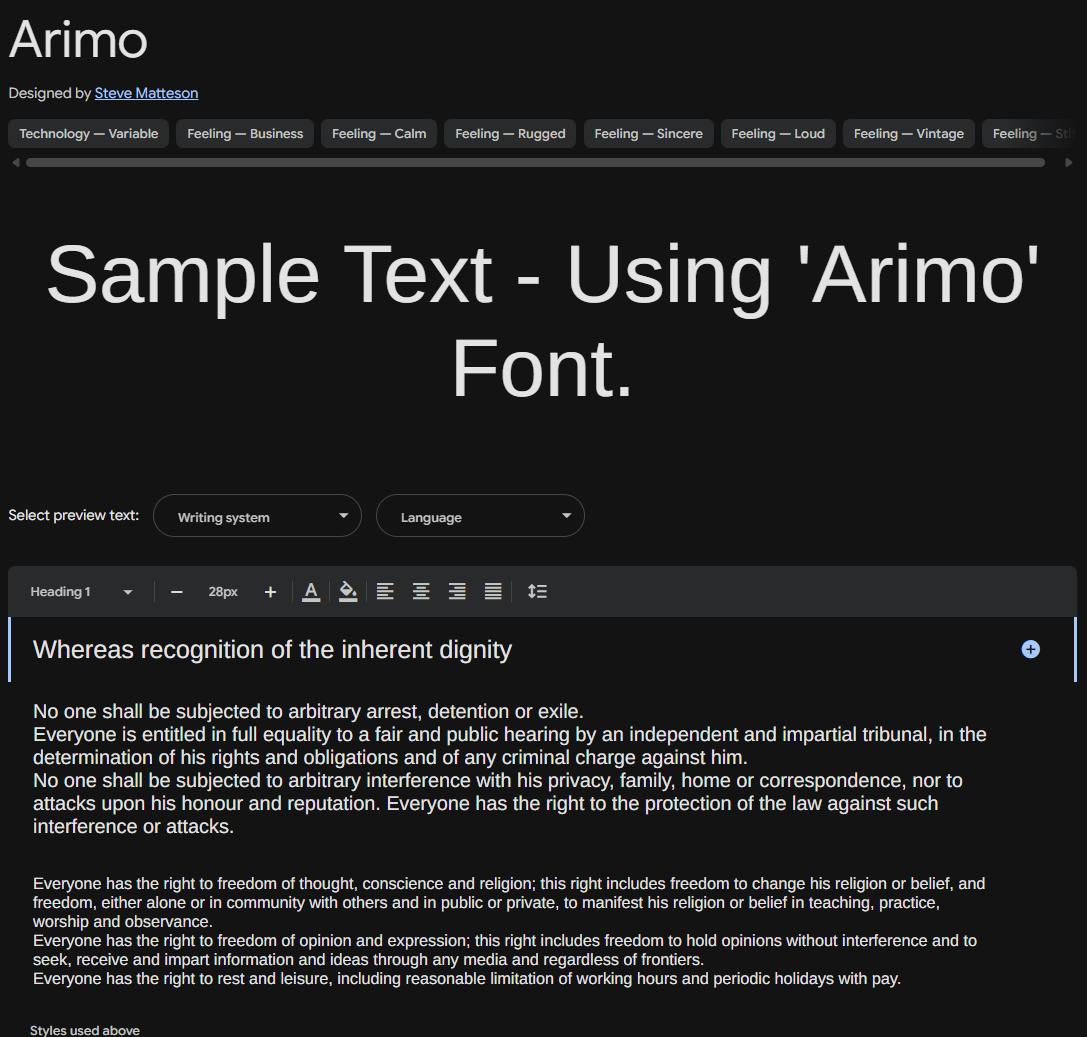
Designed by Steve Matteson as a high-performance, metrically compatible alternative to Arial, Arimo stands as a cornerstone of modern digital typography, now enhanced by the technological efficiency of the variable font format. By integrating two precise axes-Weight (wght) and Italic (ital)-this neo-grotesque sans-serif empowers developers to fine-tune visual hierarchies without the latency overhead of multiple static files, directly benefiting Core Web Vitals and layout stability. Its architectural neutrality and open apertures are specifically engineered for cross-platform screen legibility, ensuring that its precise character widths prevent layout reflow while maintaining a sophisticated, accessible aesthetic in complex user interfaces.
Arimo, engineered by Steve Matteson as a high-performance variable font, functions as a metric-compatible alternative to Arial, offering a business-centric precision that ensures seamless document reflow across digital environments. This neo-grotesque typeface achieves a sincere and calm aesthetic through its balanced x-height and open apertures, yet it maintains a rugged durability rooted in its technical optimization for low-resolution screen hinting. While its vertical stress and geometric structure impart a stiff, vintage reliability reminiscent of mid-century Swiss design, the implementation of variable technology allows Arimo to transition into a loud, high-impact communicator by manipulating its expansive weight axis, effectively bridging the gap between utilitarian functionality and assertive typographic expression.
Arimo, while a powerhouse for cross-platform legibility and metrical parity with legacy neo-grotesques, proves fundamentally ill-suited for high-concept luxury branding or artisanal editorial projects where visual differentiation is the primary currency. Its variable axes-optimized by Steve Matteson for uniform x-heights and high-speed rasterization-lack the expressive glyphic contrast and idiosyncratic terminals necessary to evoke a sense of heritage or bespoke craftsmanship. Because Arimo is engineered as a neutral, screen-first utility font for Chrome OS environments, it fails to provide the organic stroke modulation or high-contrast apertures required in high-fashion logotypes or avant-garde typography, where the "blank slate" aesthetic of a metrically compatible sans-serif would dilute brand personality into clinical invisibility.
Arimo is a contemporary sans-serif typeface characterized by its clean, neutral aesthetic and humanist design influences. It is technically classified as a "Neo-Grotesque" font, engineered specifically for enhanced on-screen legibility through its optimized stroke contrast and open apertures.
Arimo was specifically designed by Steve Matteson to be metrically compatible with the ubiquitous Arial font. This pixel-for-pixel horizontal width parity ensures that document reflow is eliminated when transitioning between proprietary system fonts and open-source alternatives in CSS stacks.
Arimo is highly recommended for long-form reading due to its balanced proportions and generous spacing that facilitate high readability. The font's optimized hinting and vertical metrics provide a stable baseline that reduces eye fatigue during extended periods of high-density text consumption on backlit displays.
Arimo features a generous x-height that allows for clearer definition of lowercase characters even when rendered at low resolutions. By increasing the ratio of lowercase height to cap height, the typeface maintains a robust glyph-to-whitespace ratio that prevents stroke blurring at small point sizes.
Arimo functions well in display settings where a modern, authoritative, and uncluttered appearance is desired for headings. While it lacks decorative flourishes, its tight kerning pairs and consistent stroke weights ensure visual impact through geometric purity and high-contrast rendering across diverse viewport widths.
The font is an excellent choice for professional reports because it conveys a sense of reliability and clarity without being distracting. Its extensive character set and support for Pan-European WGL character sets make it a technically superior choice for global corporate communication requiring multi-language support.
Arimo pairs exceptionally well with transitional or slab serif fonts to create a sophisticated visual contrast in design layouts. Combining Arimo with Tinos-its serif counterpart-provides a cohesive typographic system based on identical vertical dimensions and shared skeletal structures.
Arimo is purpose-built for high-definition screens, ensuring that UI elements and interactive labels remain legible on small mobile devices. The typeface's distinct terminals and generous inner counters prevent optical crowding, a common issue in mobile UI rendering on high-DPI displays.
Arimo is a versatile typeface that performs equally well in physical print media and high-resolution digital displays. Its robust vector outlines and TrueType instruction sets ensure sharp edge definition whether outputting via 300 DPI offset printing or 4K screen rasterization.
The default letter spacing in Arimo is slightly more relaxed than traditional display fonts to improve reading flow and character recognition. This calibrated side-bearing logic minimizes the risk of character bleeding during sub-pixel rendering, which is essential for maintaining distinct character silhouettes.